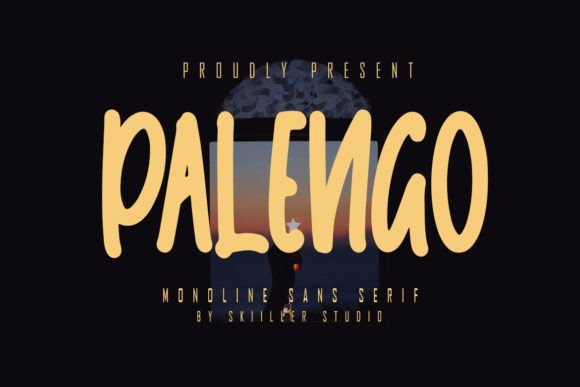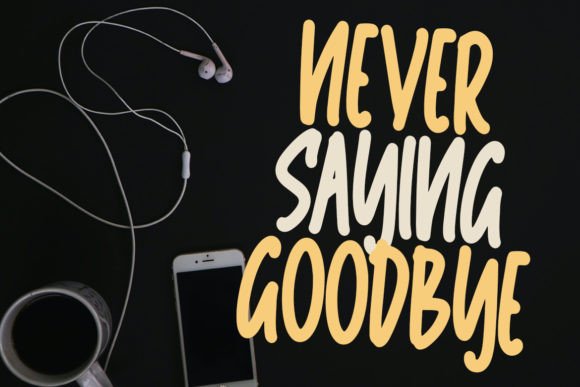
About Palengo Font
Palengo is a playful handwritten font, crafted to give your headlines and logotype projects a stylish touch. This font reads as strong, confident, and dynamic and can add tons of character to your designs.